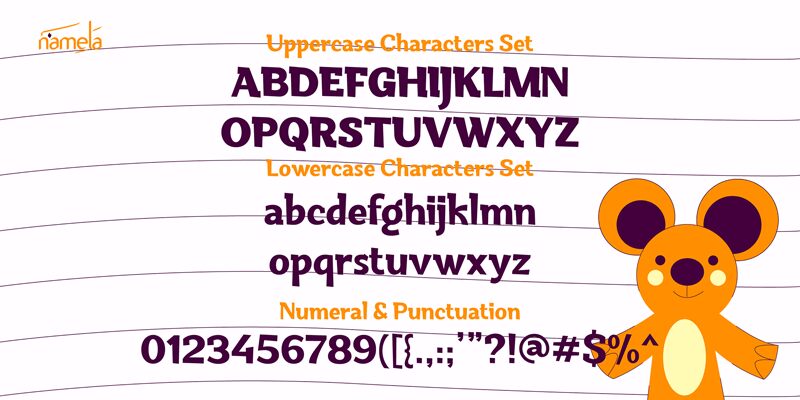
Dubidam Bold font by Namela Type is a bold display typeface with a cartoon style and casual charm. Its retro aesthetics combine geometric influences that manifest in thick shapes, smooth curves, as well as sharp edges. Each letter has been designed to achieve the ultimate balance between delivering a strong presence and maintaining the versatility necessary for wide applicability.